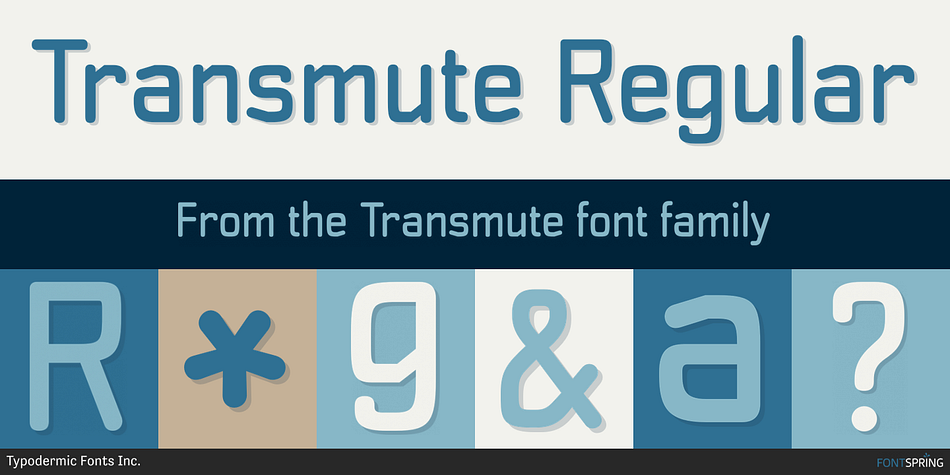
Transmute Regular
Transmute is a display sans and sans serif font family. This typeface has three styles and was published by Typodermic Fonts Inc.
Transmute: a typeface that harnesses the raw energy of scientific discovery and mechanical innovation. This display typeface doesn’t just nod to the past—it throws you headlong into an alternate timeline where gears, levers, and oscilloscopes reign supreme.
Drawing inspiration from vintage technical lettering, Transmute’s squarish letterforms and unconventional angles crackle with retro-futuristic electricity. Each character is a masterpiece of precision engineering, evoking the spirit of mad scientists and brilliant inventors tinkering in dimly lit laboratories. Transmute is a portal to an era when the hum of strange apparatus and the flicker of cathode ray tubes signaled the dawn of a new age. Its harsh, exact letterforms don’t just sit on the page—they seem to whir and click into place, transforming ordinary text into extraordinary visual experiments.
With three carefully calibrated weights—light, regular, and bold—Transmute offers designers the versatility to fine-tune their creations. The light weight whispers of delicate instruments and intricate schematics. The regular weight hums with the steady reliability of well-oiled machines. The bold weight thunders like the startup sequence of a massive, world-changing invention. Transmute isn’t content to remain in the confines of English-language designs. Like a groundbreaking scientific theory, it transcends borders, supporting a vast array of Latin-based European writing systems. From Afrikaans to Zulu, this typeface ensures your avant-garde vision resonates across cultures and continents.